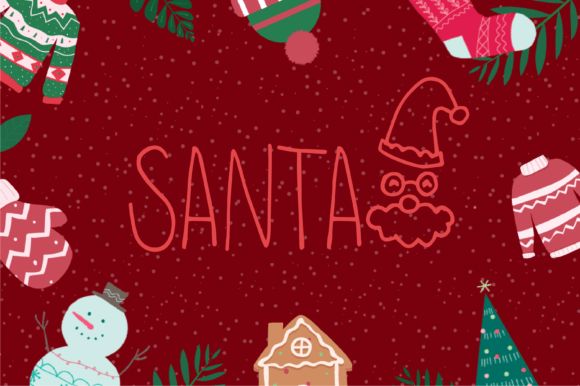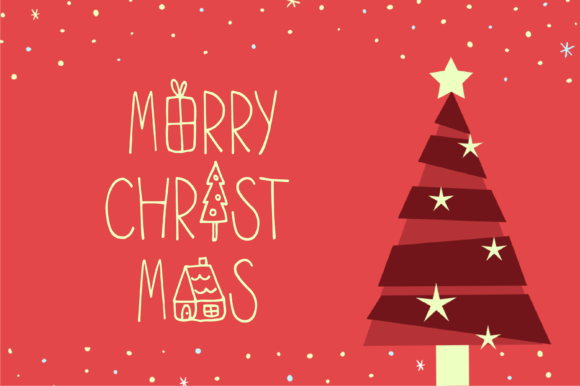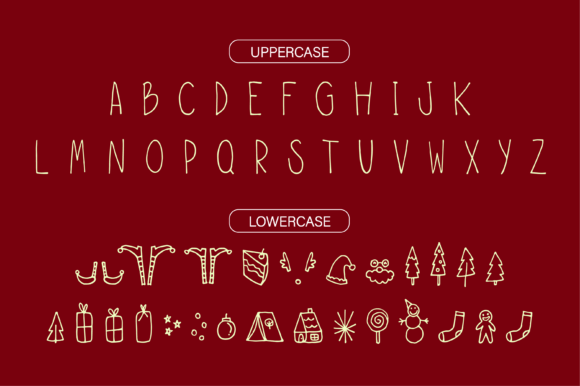
Deck the Halls with Style: Unwrapping the Christmas Present Font
As the holiday season approaches, designers are on the lookout for the perfect fonts to bring their festive projects to life. Whether it’s creating a merry card, designing a joyful website, or crafting a beautiful brochure, the right font can make all the difference. And for those seeking a font that embodies the spirit of Christmas, look no further than the Christmas Present Font.
This fun and festive display font is the perfect choice for all your holiday-inspired projects. With its playful, whimsical feel, it’s sure to add a touch of magic to your designs. Whether you’re a seasoned pro or just starting out, the Christmas Present Font is a valuable addition to any designer’s toolkit.
Christmas Present Font Key Features
- Unique Characteristics: Features a festive, hand-drawn design with intricate details and ornaments, evoking a sense of nostalgia and holiday cheer
Designer Review: Christmas Present Font
At first glance, the Christmas Present Font seems like a fun and playful addition to any holiday-themed design project. ✨ The font’s irregular shapes and creative use of negative space make it stand out and add a touch of whimsy to any text. The font is also highly customizable, allowing designers to adjust the size, color, and style to fit their project’s needs.
- Unique and playful design that adds a touch of whimsy to holiday-themed projects.
- Highly customizable to fit a variety of design needs.
- Great for creating eye-catching headlines and titles.
However, there are a few limitations to consider. ⚠️ The font may not be suitable for all types of text, such as body copy or paragraphs, as the irregular shapes can make it difficult to read. Additionally, the font may not be as versatile as other fonts, as it’s specifically designed for holiday-themed projects.
The Christmas Present Font is a fun and creative addition to any holiday-themed design project. While it may have some limitations, the unique design and high level of customization make it a great choice for designers looking to add a touch of whimsy to their projects.
For the most visually appealing results, use Christmas Present Font in combination with festive colors and graphics.
Christmas card designs
Holiday invitations
Gift tag templates
Alternatives to Christmas Present Font
Great Vibes is a beautiful, handwritten font perfect for adding a touch of elegance to your designs. It’s ideal for use in invitations, greeting cards, and other festive materials. When to use: For creating a sophisticated and whimsical feel.
Comparison: Great Vibes has a more refined and polished look compared to Christmas Present Font, which has a more playful and childlike feel.
Carolyna Pro is a modern, elegant script font that’s perfect for creating a luxurious and sophisticated look. It’s ideal for use in branding, advertising, and packaging materials. When to use: For creating a high-end and premium feel.
Comparison: Carolyna Pro has a more polished and refined look compared to Christmas Present Font, which has a more playful and whimsical feel.
Playfair Display is a luxurious, elegant serif font that’s perfect for adding a touch of sophistication to your designs. It’s ideal for use in branding, advertising, and packaging materials. When to use: For creating a high-end and premium feel.
Comparison: Playfair Display has a more elegant and sophisticated look compared to Christmas Present Font, which has a more playful and childlike feel.
Pacifico is a beautiful, modern script font that’s perfect for adding a touch of elegance to your designs. It’s ideal for use in branding, advertising, and packaging materials. When to use: For creating a sophisticated and laid-back feel.